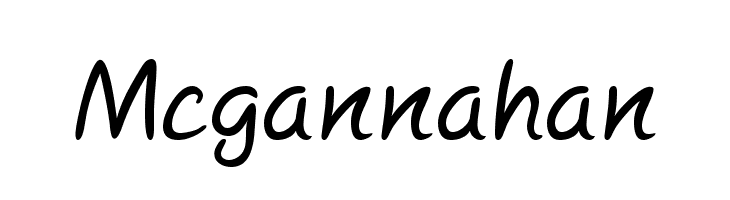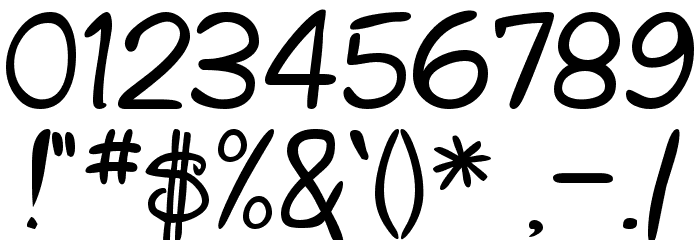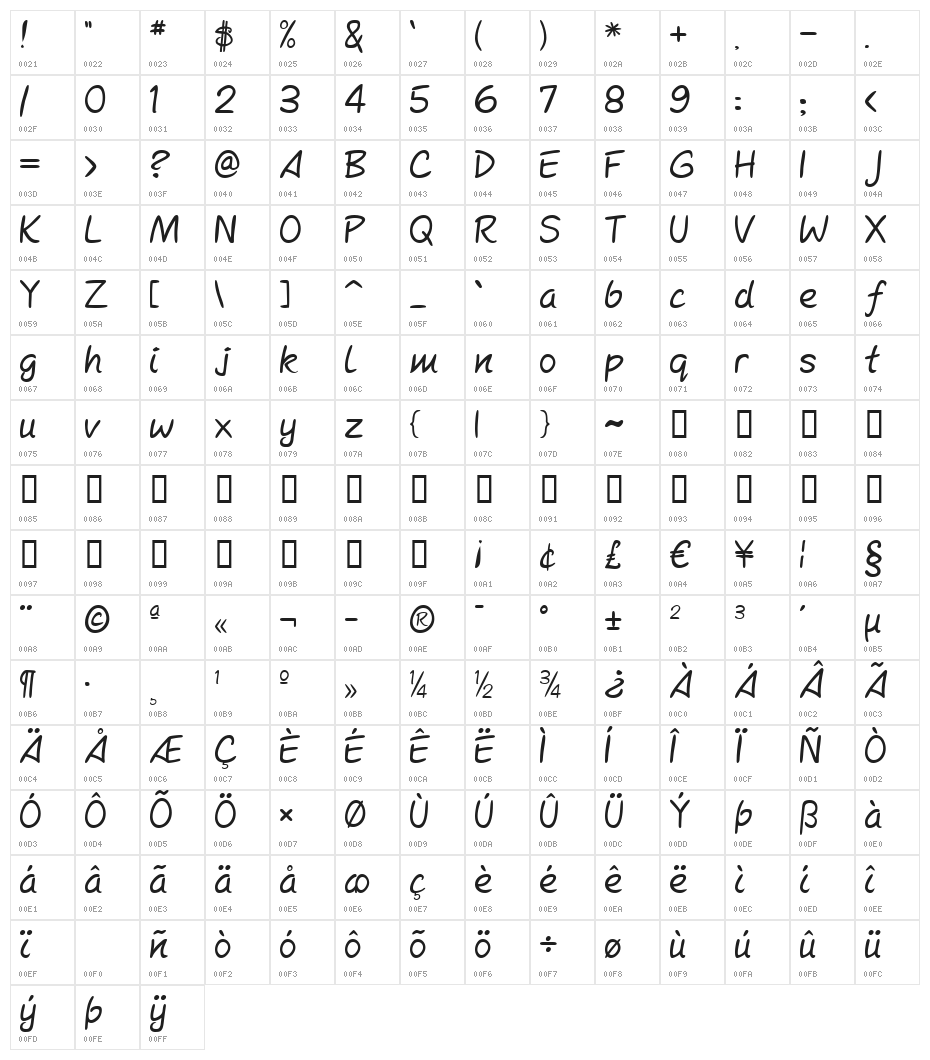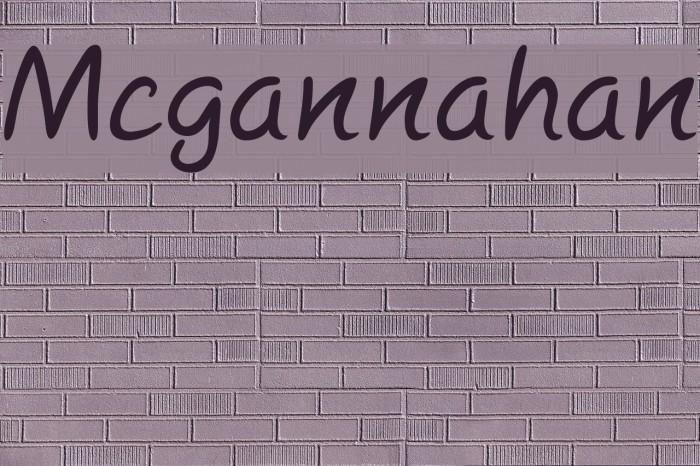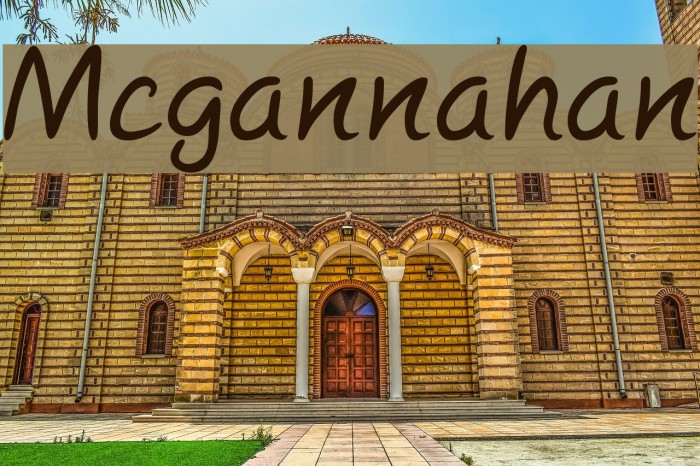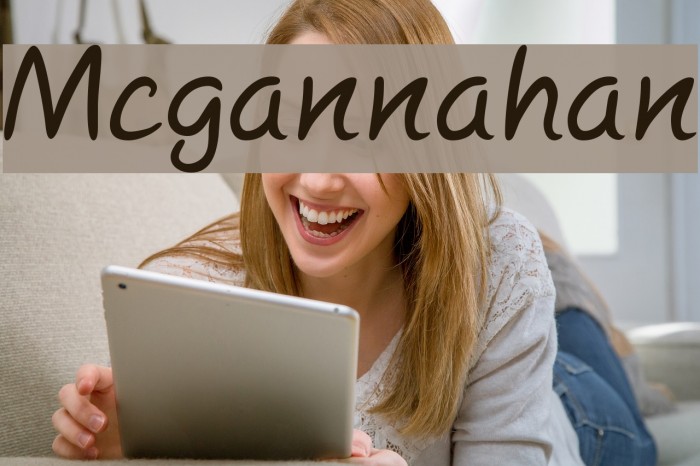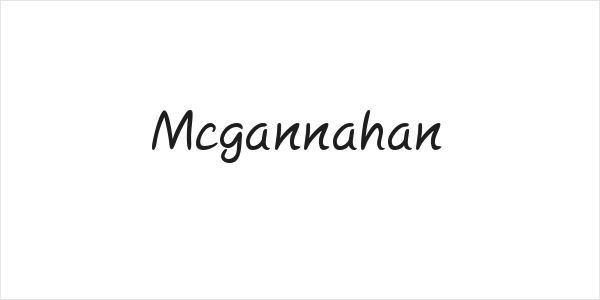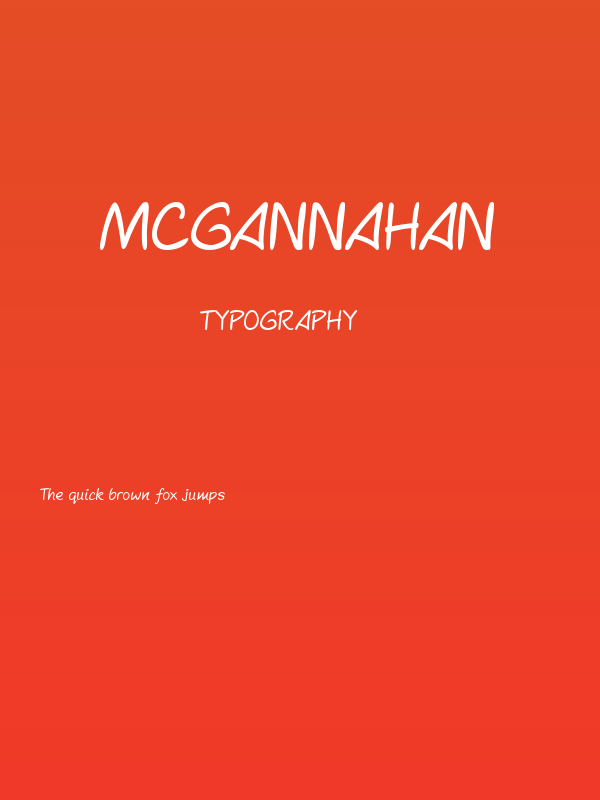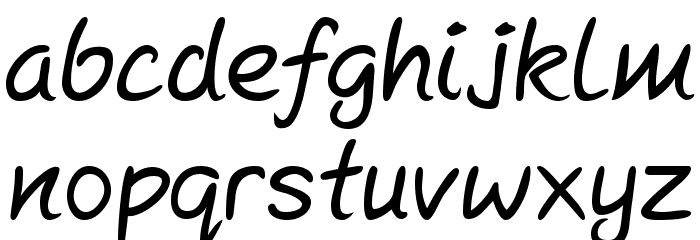
Mcgannahan Font
This font features a playful and casual handwritten style, characterized by smooth, flowing curves and a slightly slanted orientation. The uppercase letters are bold and confident, while the lowercase letters maintain a consistent rhythm, adding to the font's approachable and friendly appearance. The numerals are rounded and easy to read, complementing the overall aesthetic. Special characters are integrated seamlessly, maintaining the font's cohesive look. This font is versatile, suitable for a variety of creative projects that require a personal touch.
| Proposed Projects | Ideal for greeting cards, invitations, personal branding, and social media graphics. |